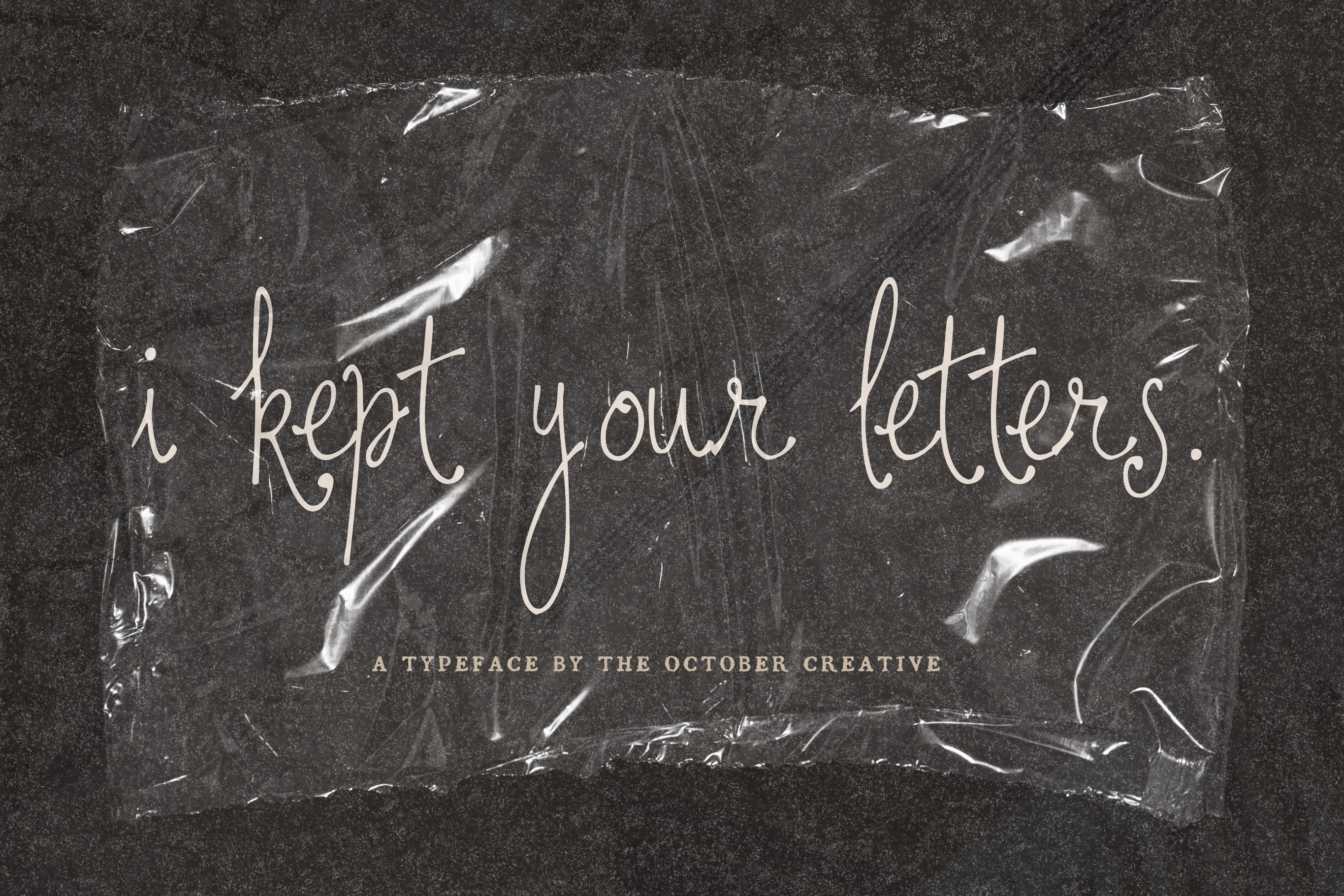
I Kept Your Letters Script Font
I Kept Your Letters is a delicate handwriting font with thin strokes, long loops, and a light slant. It's made for love letters, wedding vows, save the dates, and handwritten-style notes and quotes.
CHARACTER SET
Uppercase A to Z, lowercase a to z, numerals 0 to 9, and every standard keyboard punctuation mark and symbol: ! " # $ % & ' ( ) * + , - . / : ; < = > ? @ [ \ ] ^ _ ` { | } \~
Curly quotes and apostrophes (‘ ’ “ ” ‚ „), en and em dashes, an ellipsis, and a bullet.
Accented letters: À Á Â Ã Ä Å Ç È É Ê Ë Ì Í Î Ï Ñ Ò Ó Ô Õ Ö Ù Ú Û Ü and their lowercase forms.
LANGUAGES SUPPORTED
English, plus the accented vowels, Ñ, and Ç used in names and everyday words in Spanish, French, Italian, Portuguese, German, and Dutch. Not included: ß, Æ, Ø, Œ, and the upside-down ¿ and ¡.
SPECIAL CHARACTERS